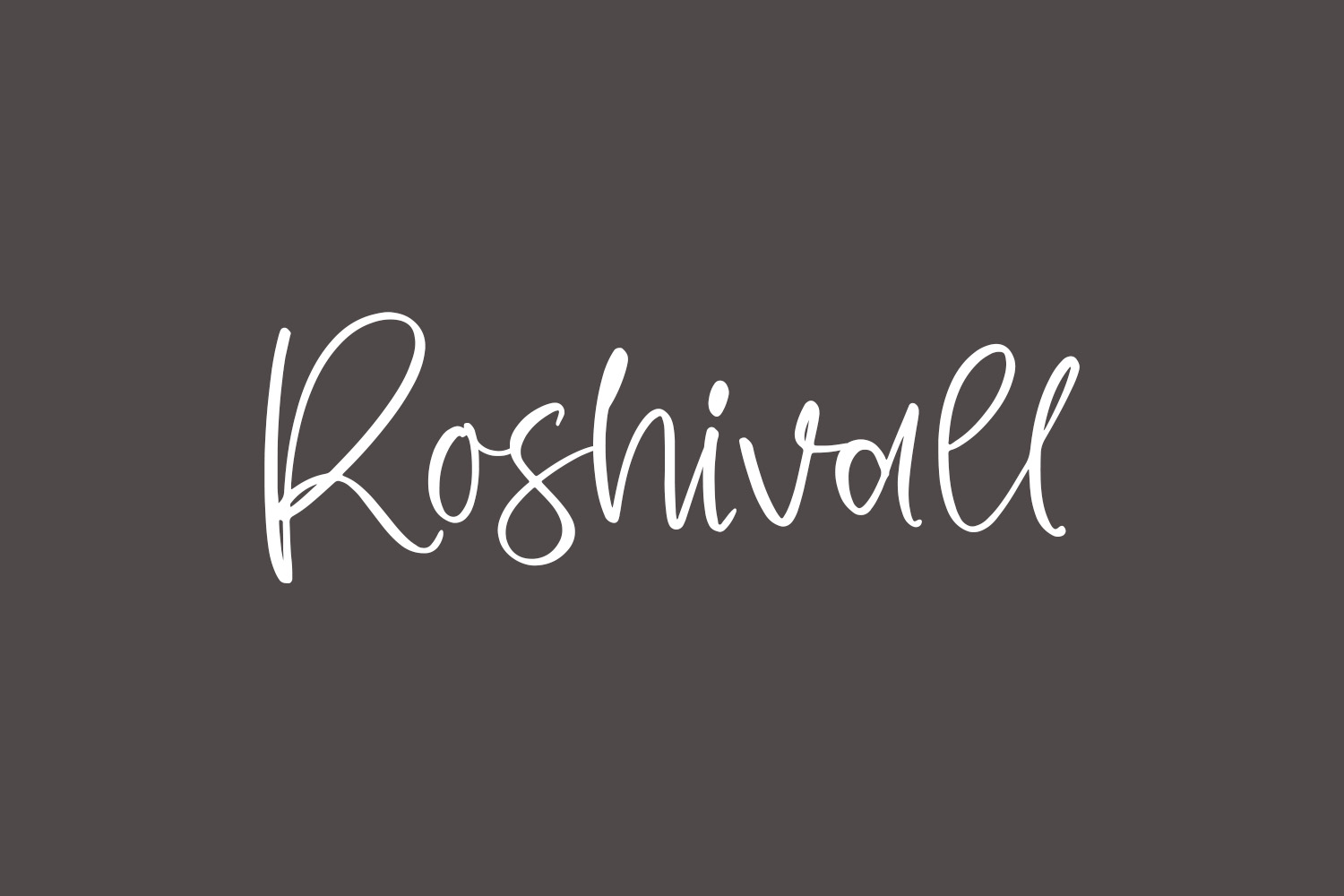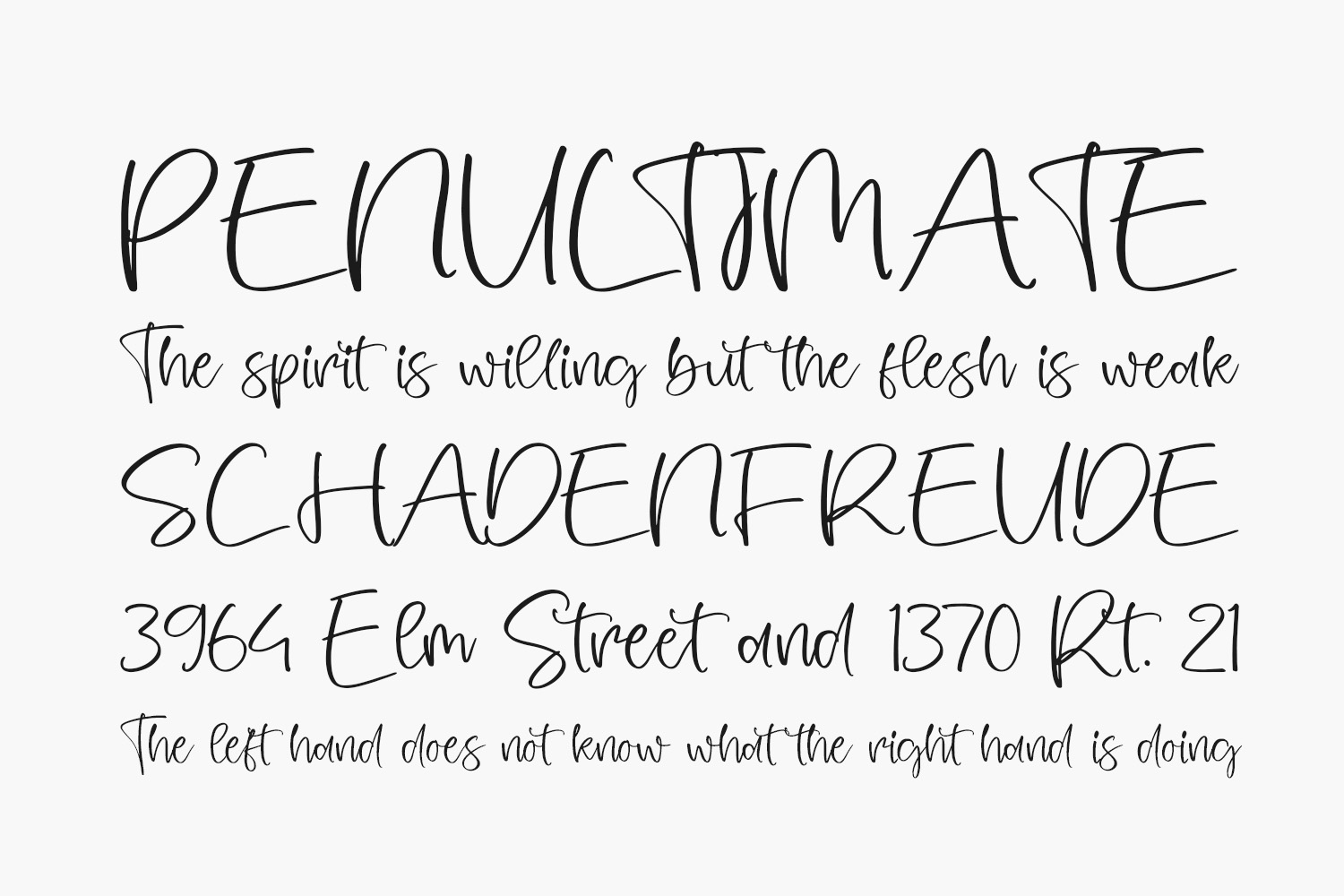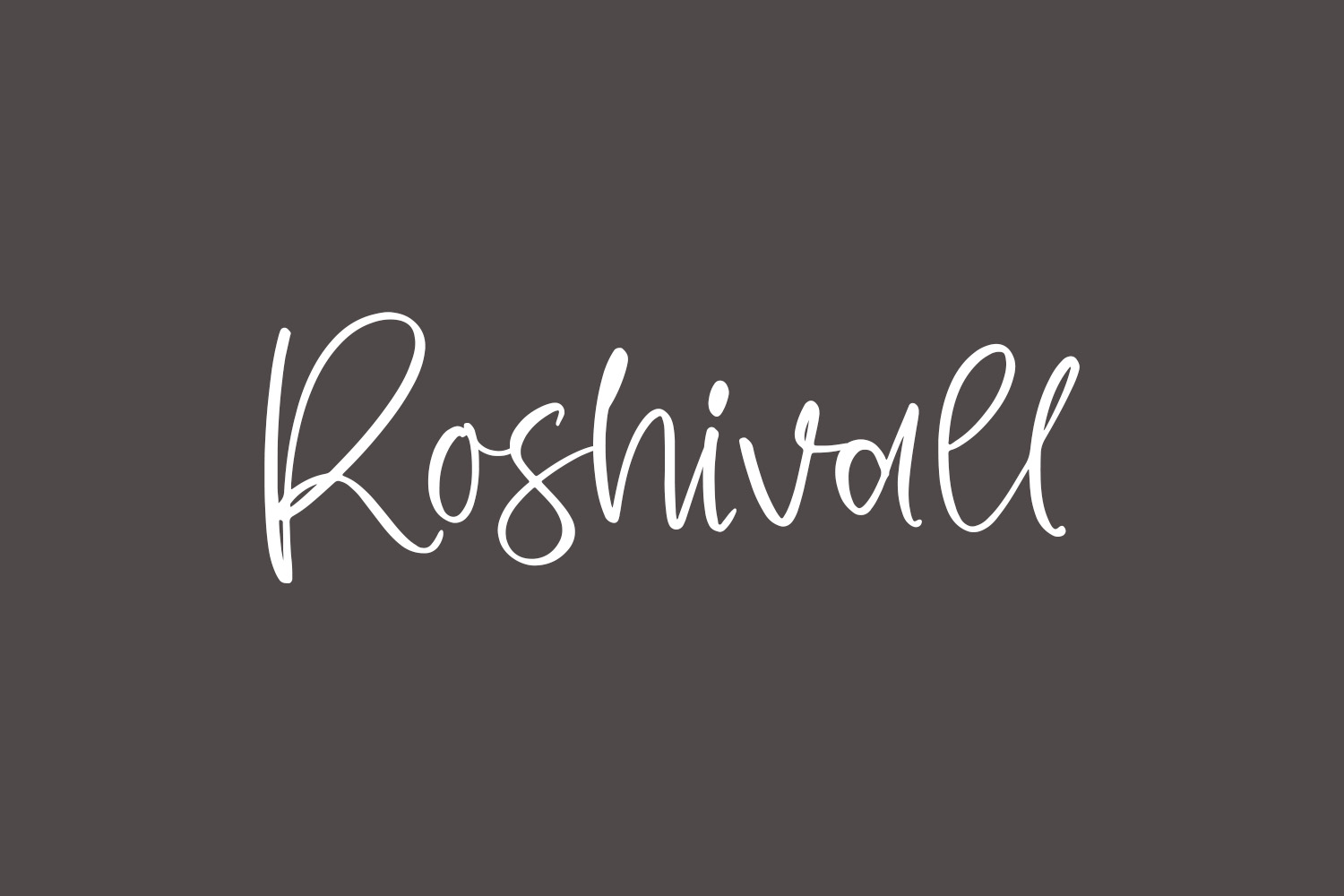
Introducing Roshivall Free Font, a contemporary handwritten font perfectly suited for diverse projects, including logos, branding, homeware designs, product packaging, mugs, quotes, posters, shopping bags, t-shirts, book covers, name cards, invitations, greetings, labels, photography, watermarks, special events, and more. Elevate all your lovely projects with the beautiful script taste of Roshivall. Roshivall Free Font was designed by Letterena Studios and is free for personal use only. Please purchase the full version for commercial use.
Designed by Letterena Studios